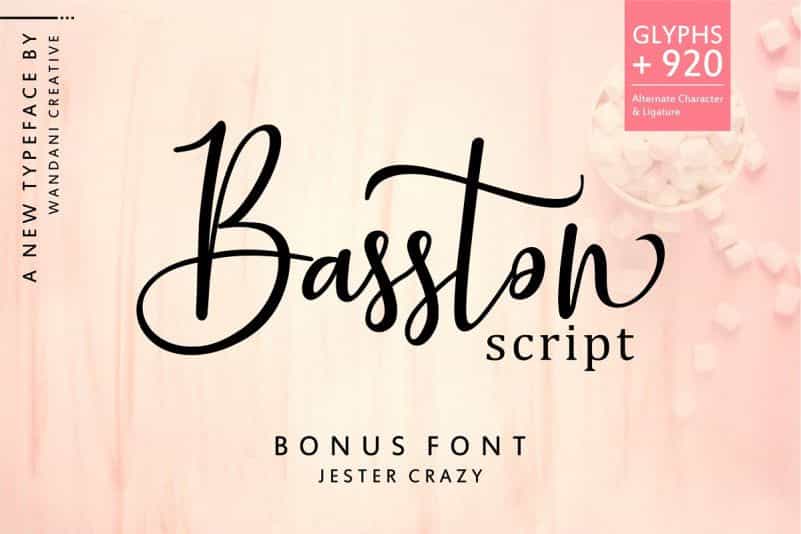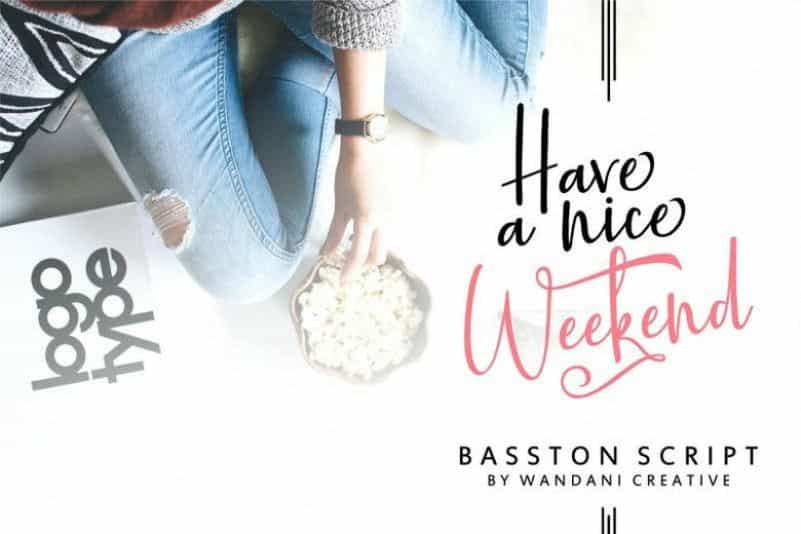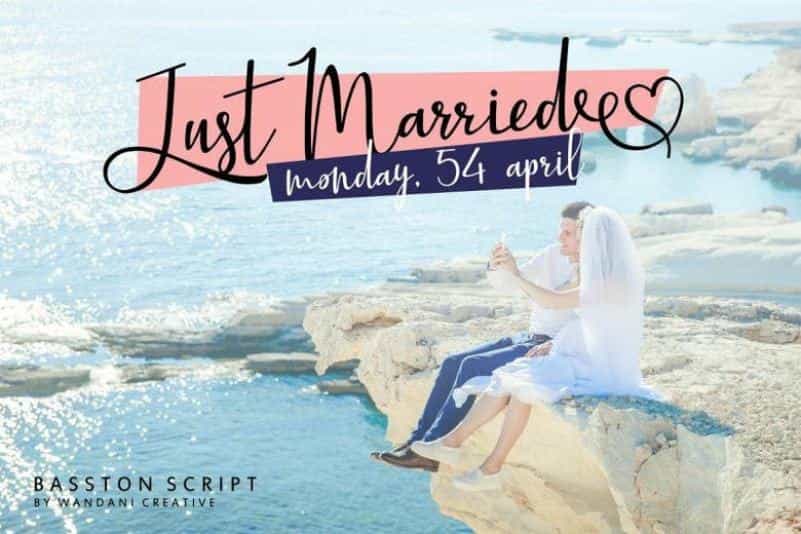
Introduce the Basston Font to your friends. This is all what you need to give your brand the jump start it needs. The calligraphy style of this font makes it ideal for any purpose, be it formal or informal. It is created and distributed by wandani. creative. “Basston Script” is a delightful script font that is both elegant and charming in its appearance.